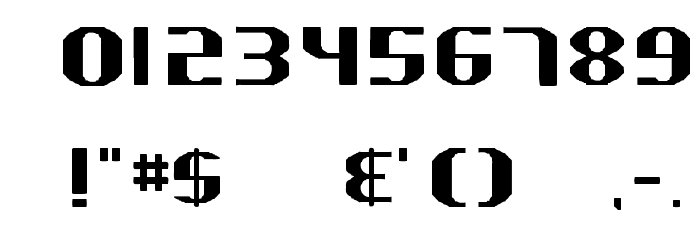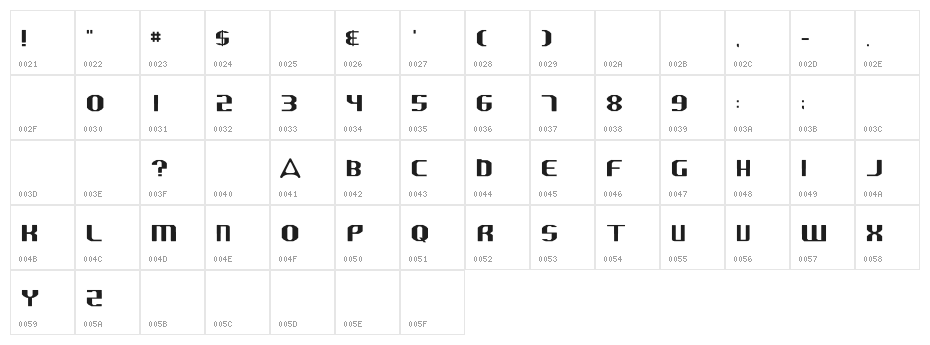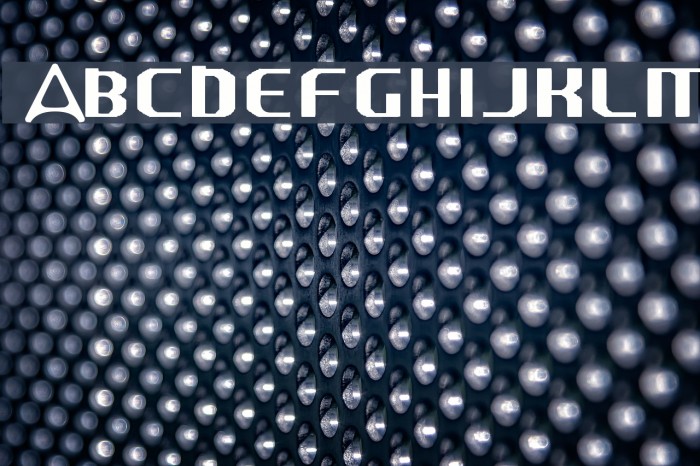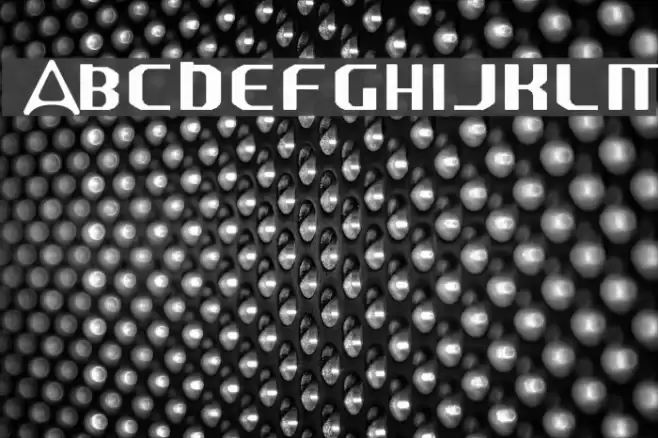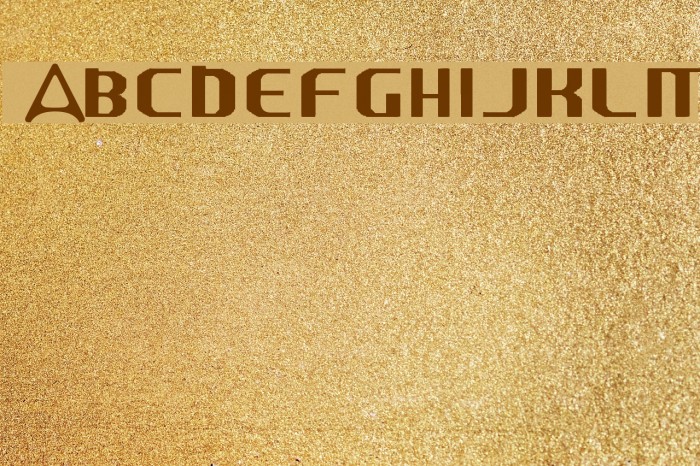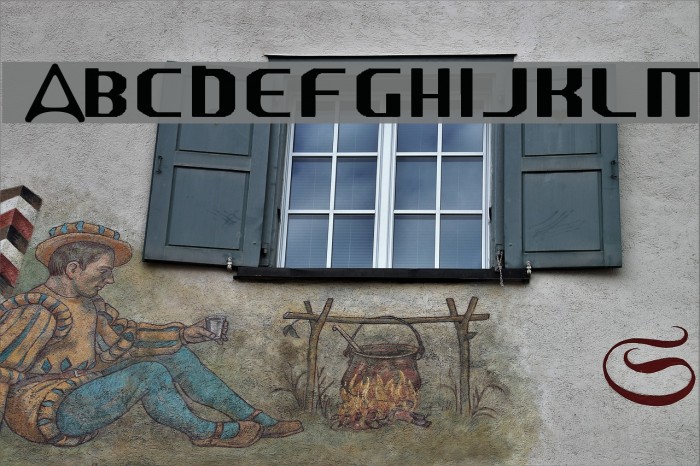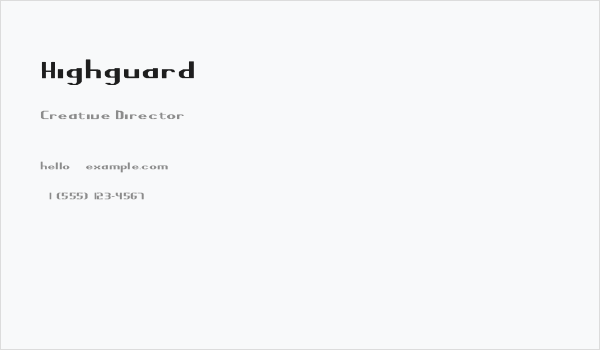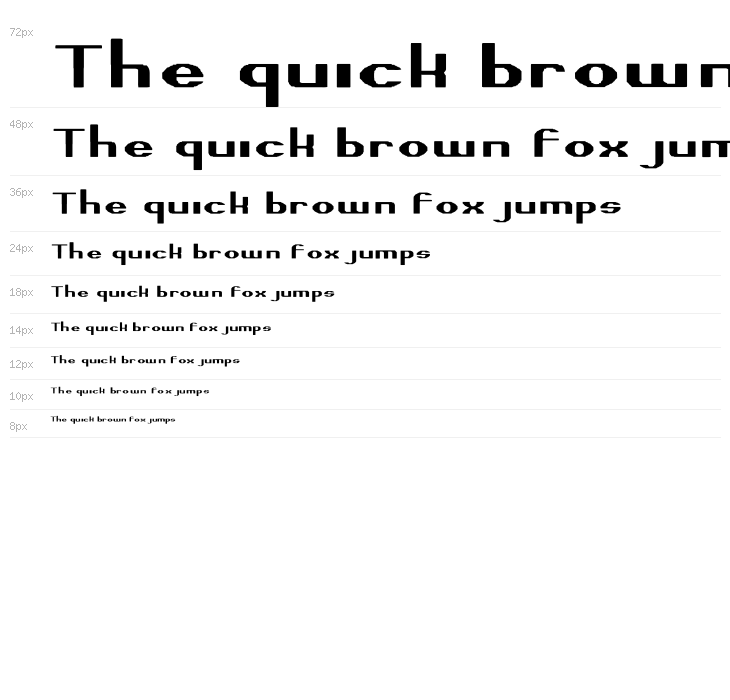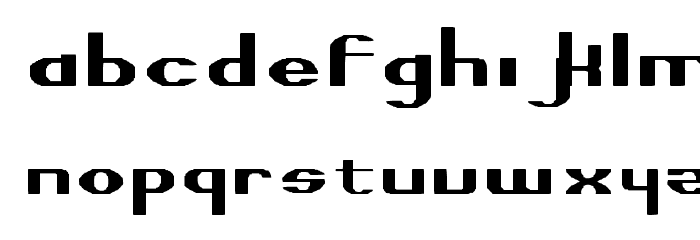
Highguard Font
Highguard Description
This font features a bold and striking design with angular, geometric shapes that give it a futuristic and modern appearance. The uppercase letters are particularly distinctive, with sharp edges and unique cutouts that create a sense of movement and dynamism. The lowercase letters maintain this geometric style, offering a cohesive look across different text cases. The numerals are equally bold, with a consistent weight that matches the letters, ensuring readability and visual impact. Special characters are designed to complement the overall aesthetic, making this font suitable for a variety of creative applications.